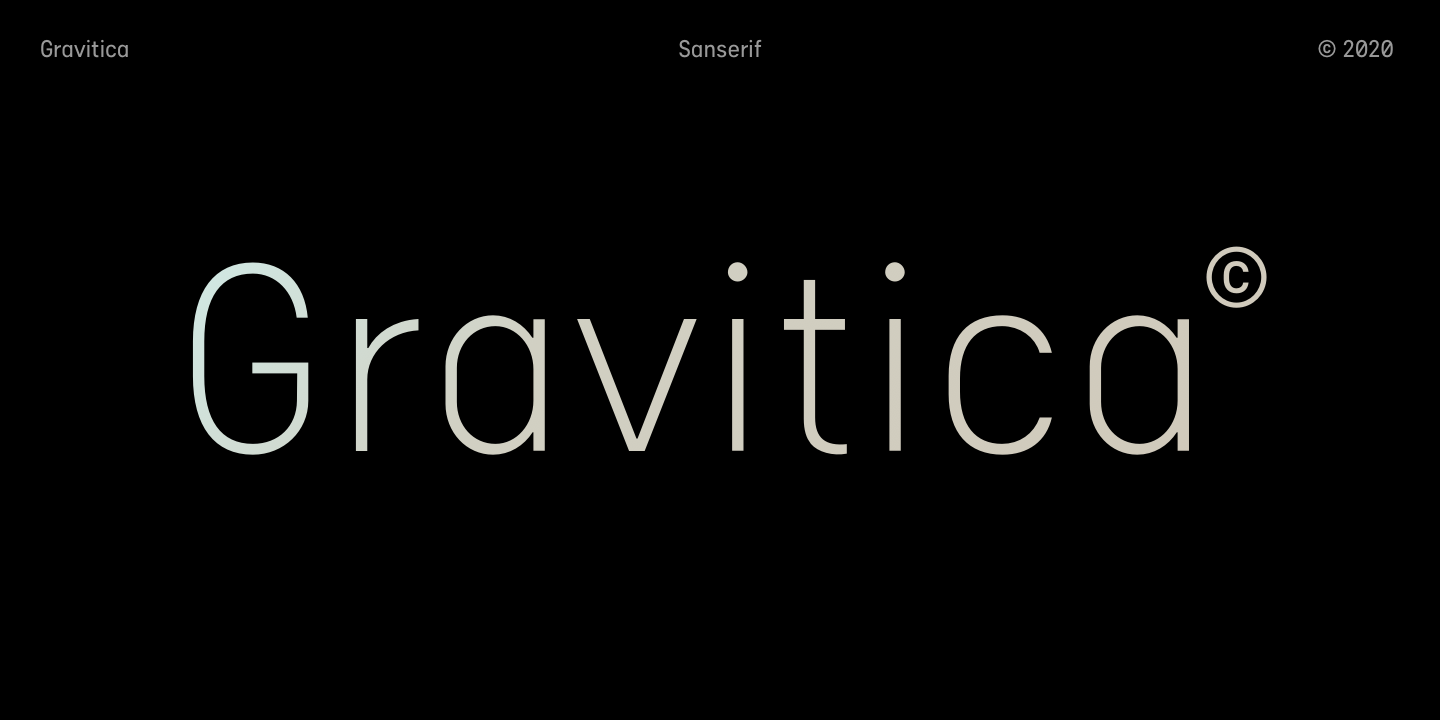
Gravitica Font is perfect for aerospace company branding, science museum exhibits, physics research publications, space exploration materials, scientific conference posters, observatory signage, astronomy education resources, and cutting-edge technology presentations.
Gravitica Font is exciting because it captures the profound mysteries and infinite possibilities of cosmic exploration through its sophisticated character design that embodies the precision of scientific research and the awe-inspiring nature of universal forces. Its stellar aesthetics and scientific authenticity make it the perfect choice for brands that want to communicate discovery, innovation, and the boundless potential of scientific advancement.
The Gravitica Font family includes multiple cosmic variations: Gravitica Light, Gravitica Regular, Gravitica Medium, Gravitica Bold, Gravitica Condensed, and Gravitica Extended, along with scientific symbols and astronomical decorative elements, providing designers with comprehensive tools for creating authentic space and science-themed brand experiences.
When exploring scientific typography solutions, Gravitica Font Free Download stands out as the definitive choice for designers working on space exploration and scientific research projects that require genuine scientific sophistication and cosmic appeal. This remarkable typeface embodies the essence of astronomical discovery while offering the technical precision that contemporary research institutions and aerospace organizations require. The font's cosmic character and scientific resonance create immediate connections with audiences who appreciate space exploration and scientific achievement.
Scientific professionals consistently rely on Gravitica Font for projects requiring authentic scientific authenticity and powerful cosmic appeal. Its expertly engineered letterforms feature astronomical influences that work exceptionally well in both large-scale planetarium displays and intimate research publication layouts. The font's ability to convey scientific excellence and cosmic wonder while maintaining perfect readability makes it invaluable for comprehensive brand identity systems in the aerospace, research institution, and scientific education sectors.
Whether you're developing space agency identities, creating science museum exhibitions, or designing astronomical research presentations, Gravitica Font delivers the authentic scientific character and cosmic appeal that resonates with audiences who embrace space exploration and scientific discovery. Its stellar design and technical sophistication ensure your projects communicate cutting-edge scientific expertise while maintaining contemporary professional standards that attract modern researchers and space enthusiasts.